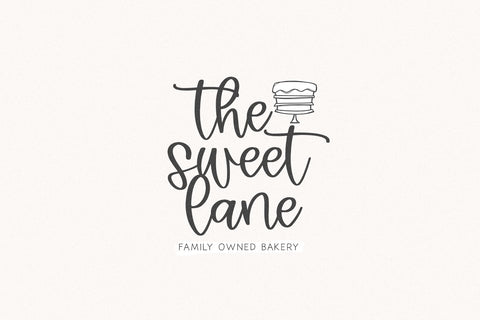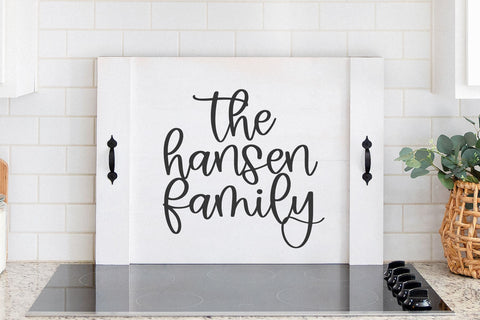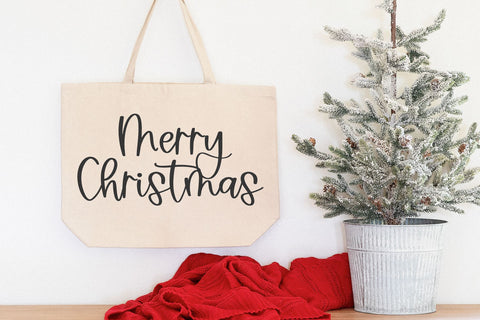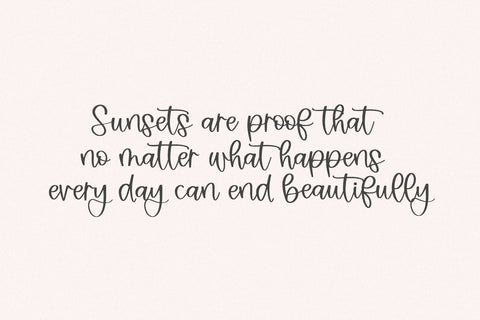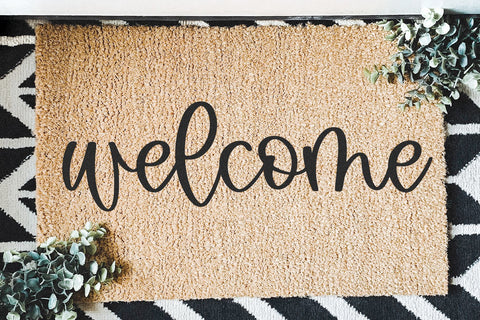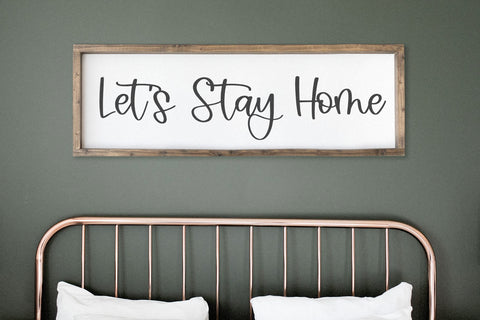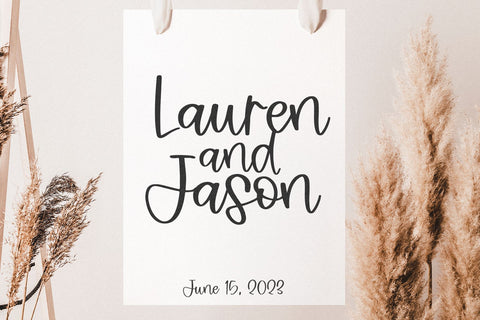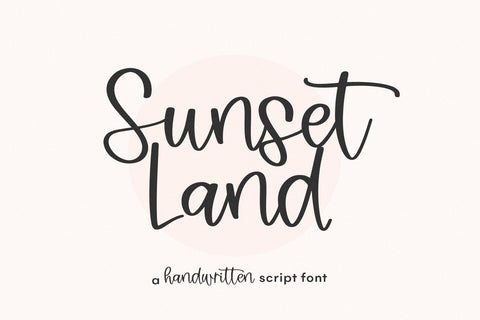
Sunset Land - Handwritten Script Font
Sunset Land is a modern handwritten script font.
This font is perfect for your craft projects, svg files, logos, shirts, vinyl, farmhouse signs, doormats, mugs, decor, invitations, wedding decor and more!